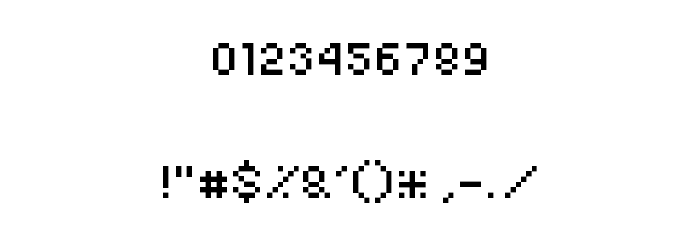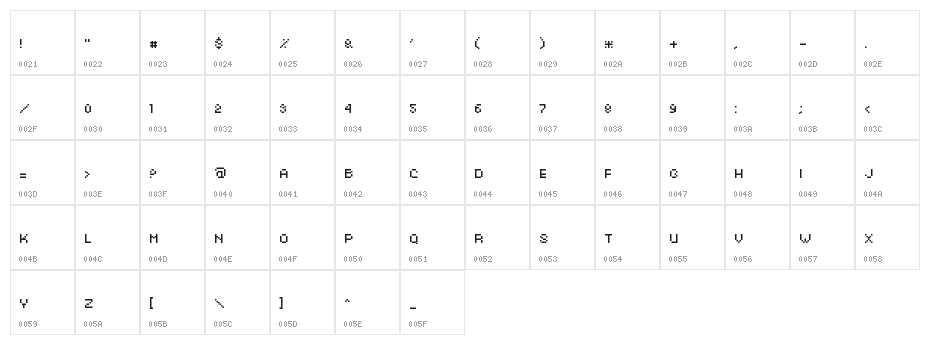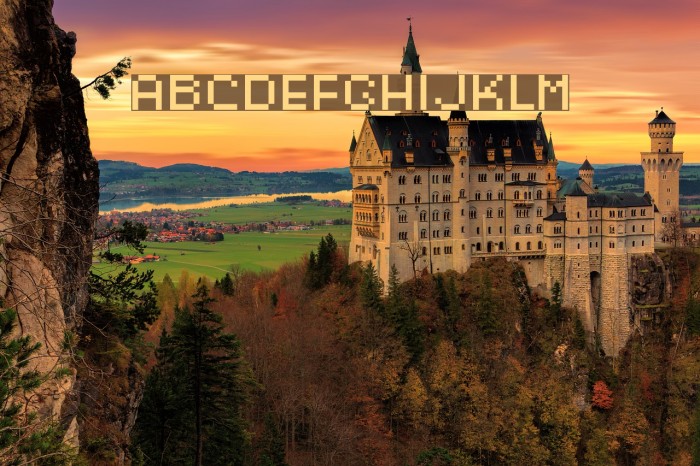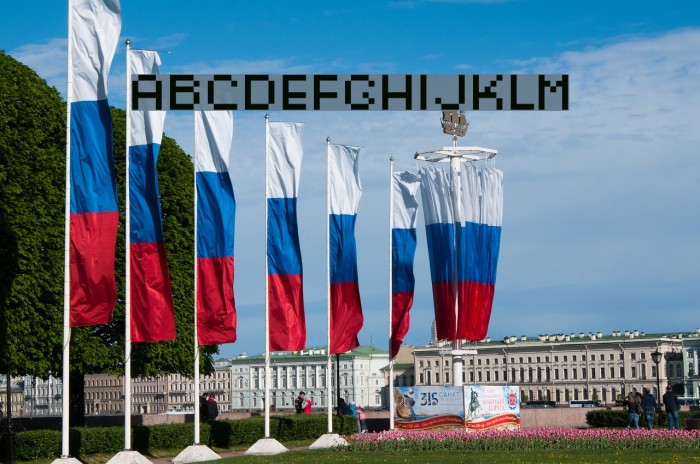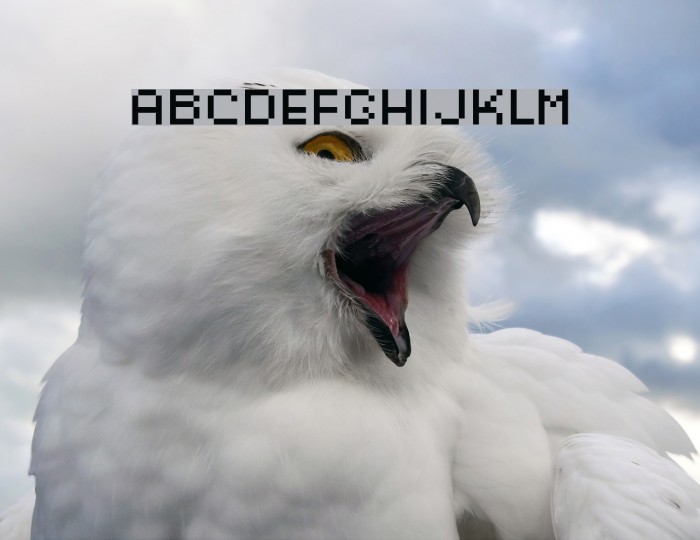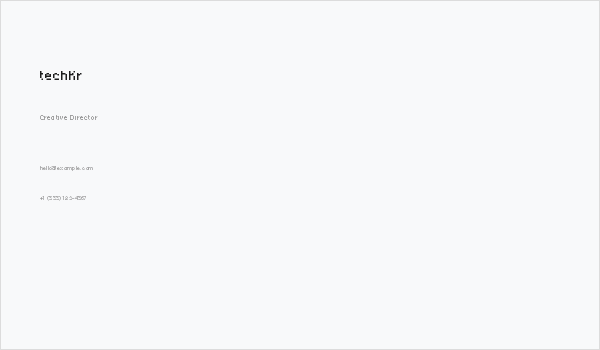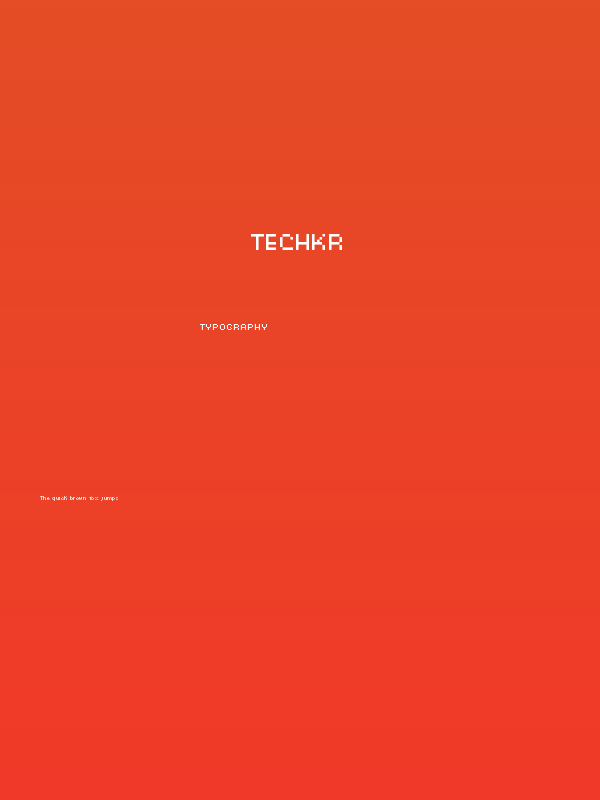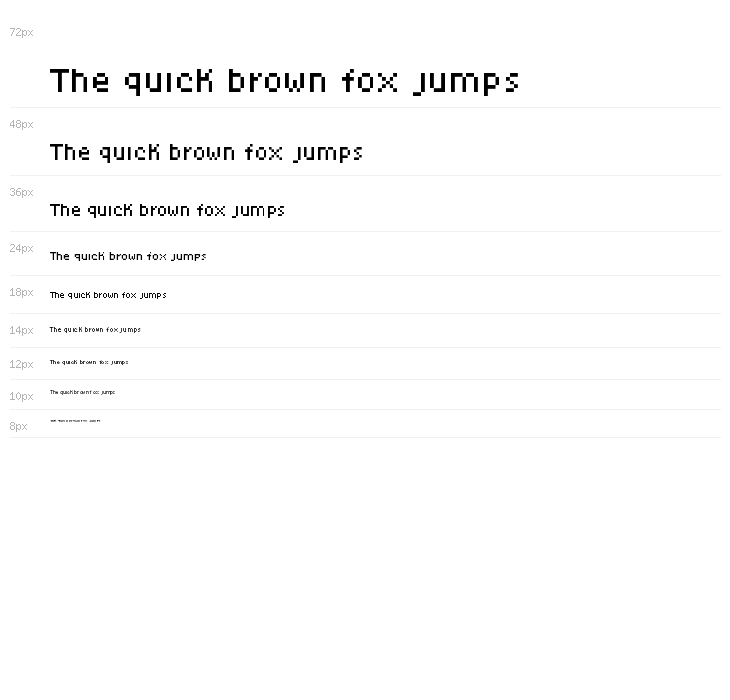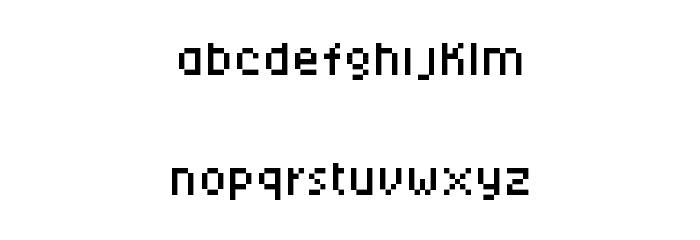
techkr Font
techkr Description
This font features a pixelated, blocky design reminiscent of early digital displays and retro video games. Each character is constructed with a grid-like precision, giving it a distinctly digital and technical appearance. The uppercase and lowercase letters maintain a consistent height, contributing to a uniform and cohesive look. The numerals and special characters follow the same pixelated style, ensuring visual harmony across all glyphs. This font's straightforward and geometric design makes it ideal for projects that require a nostalgic or tech-inspired aesthetic.
| Use Case | Headlines, Logos, Digital displays |
| Proposed Projects | Ideal for video game design, tech-themed posters, digital art, and retro-style branding. |